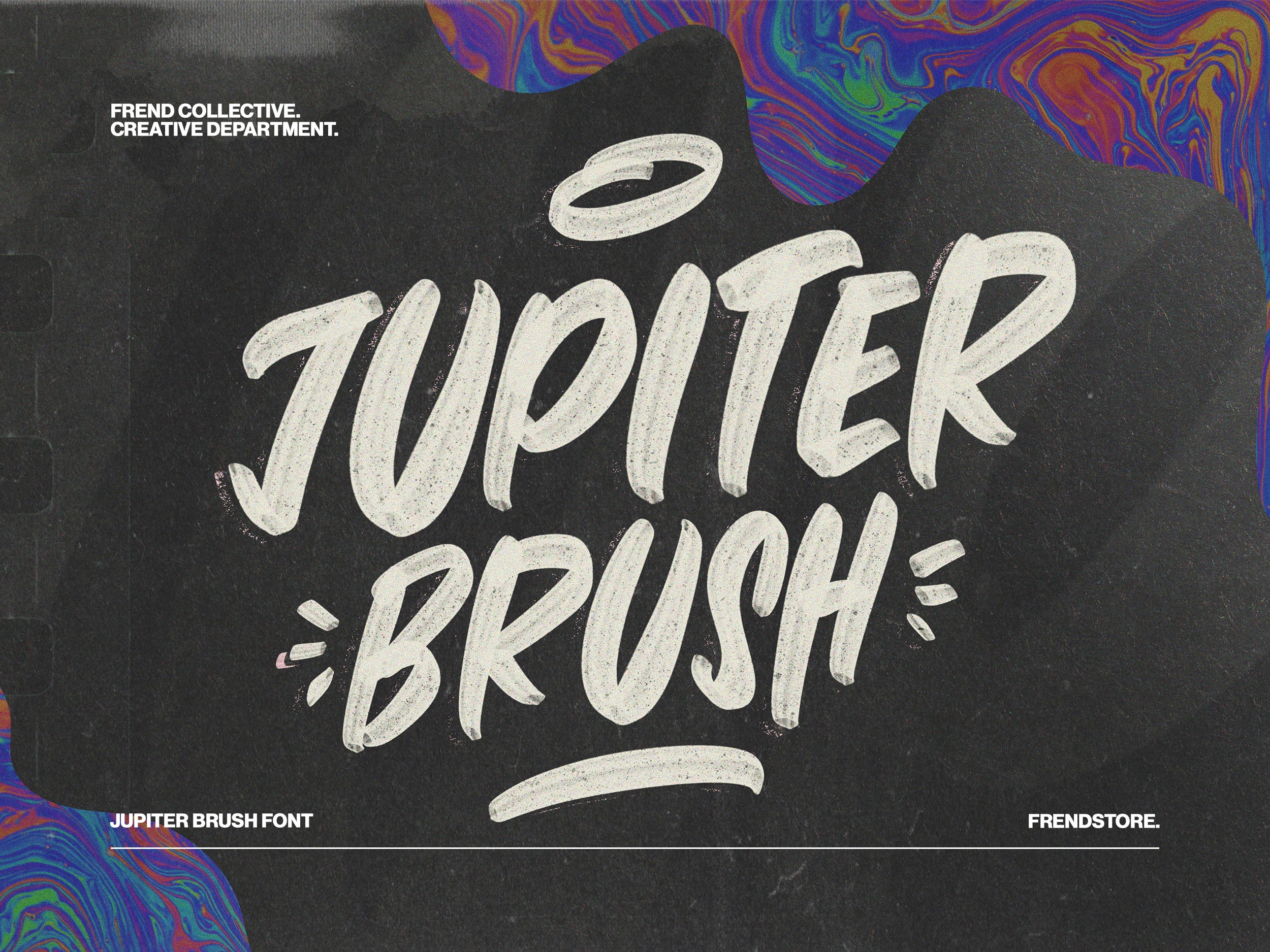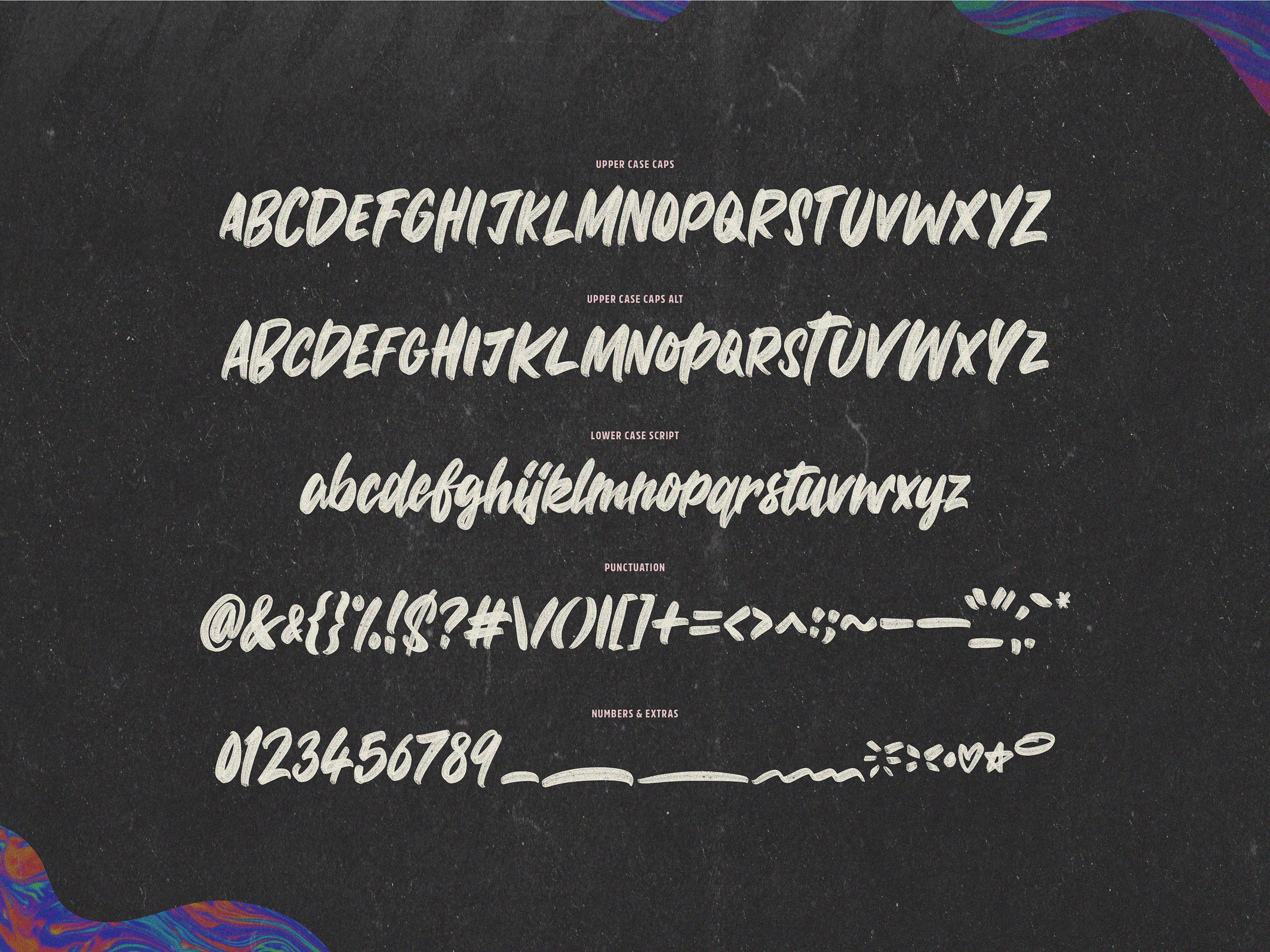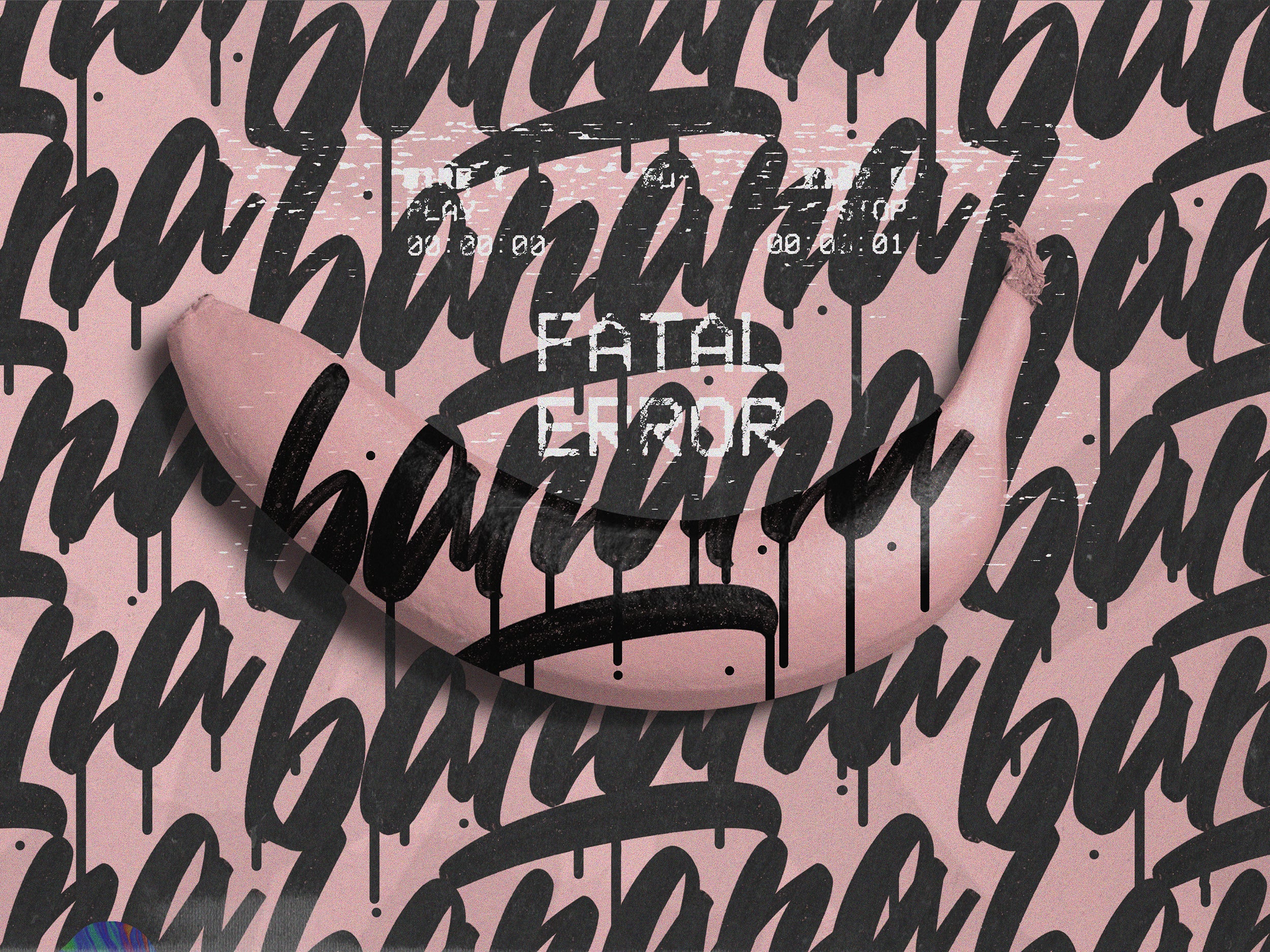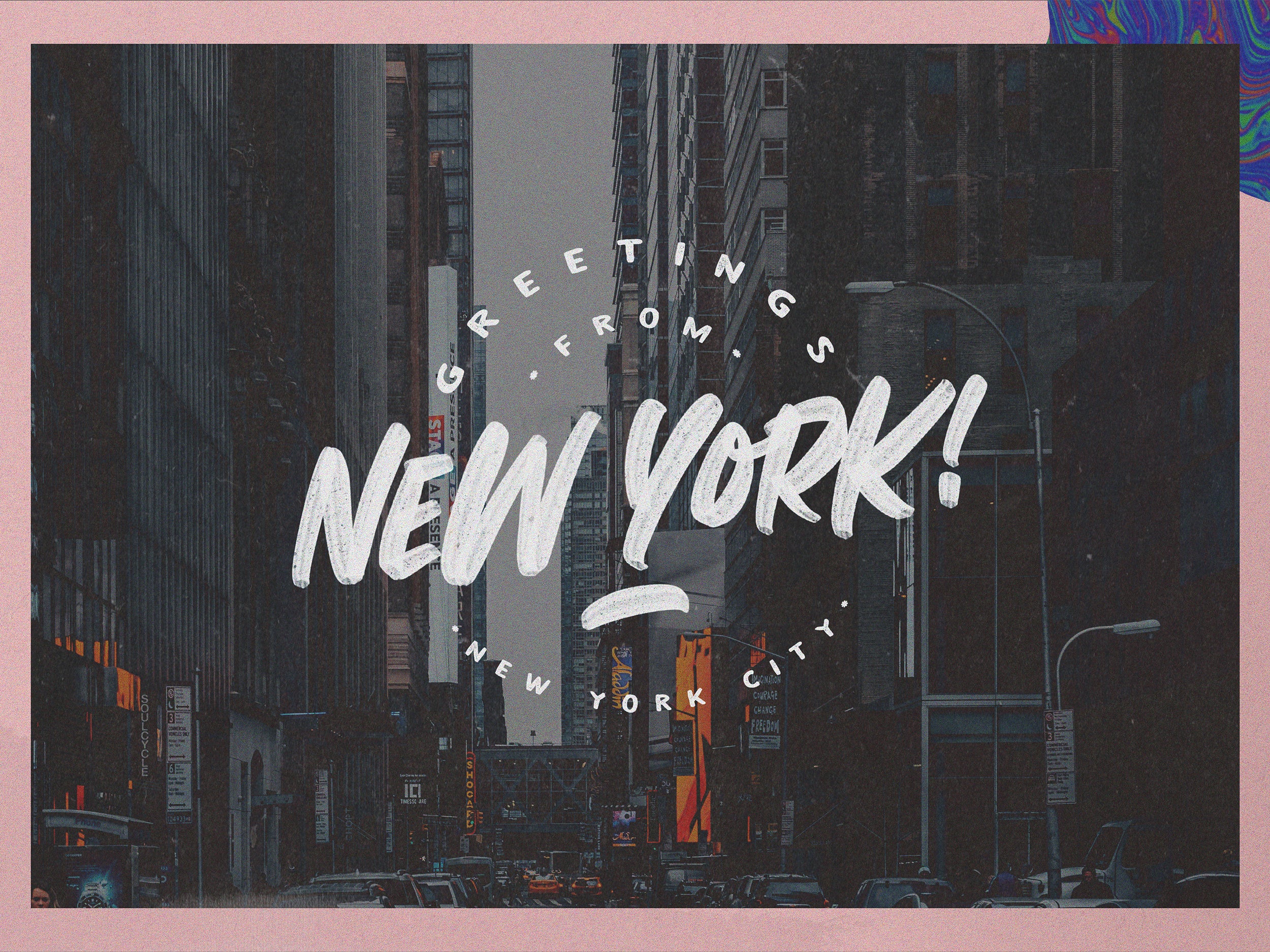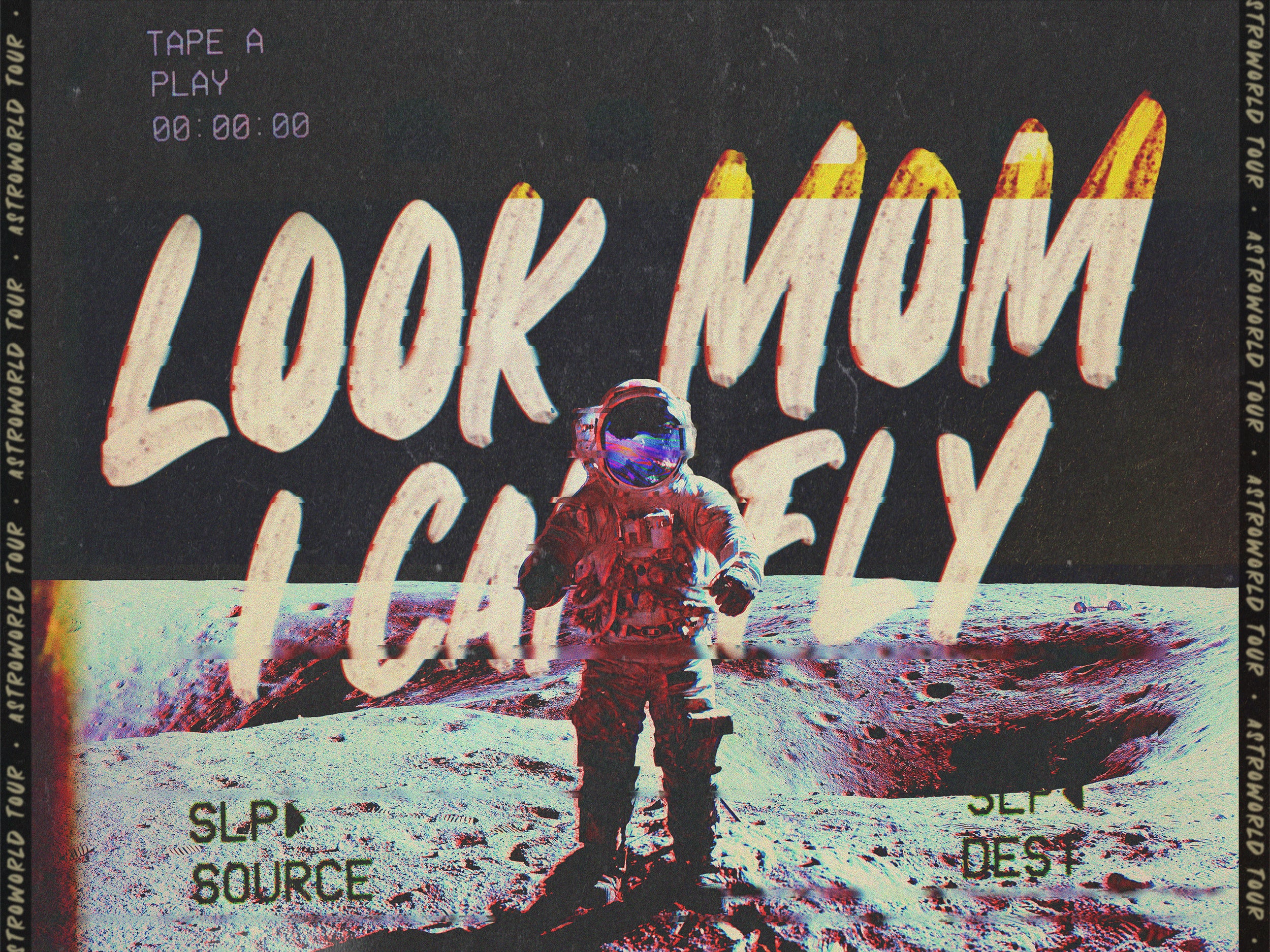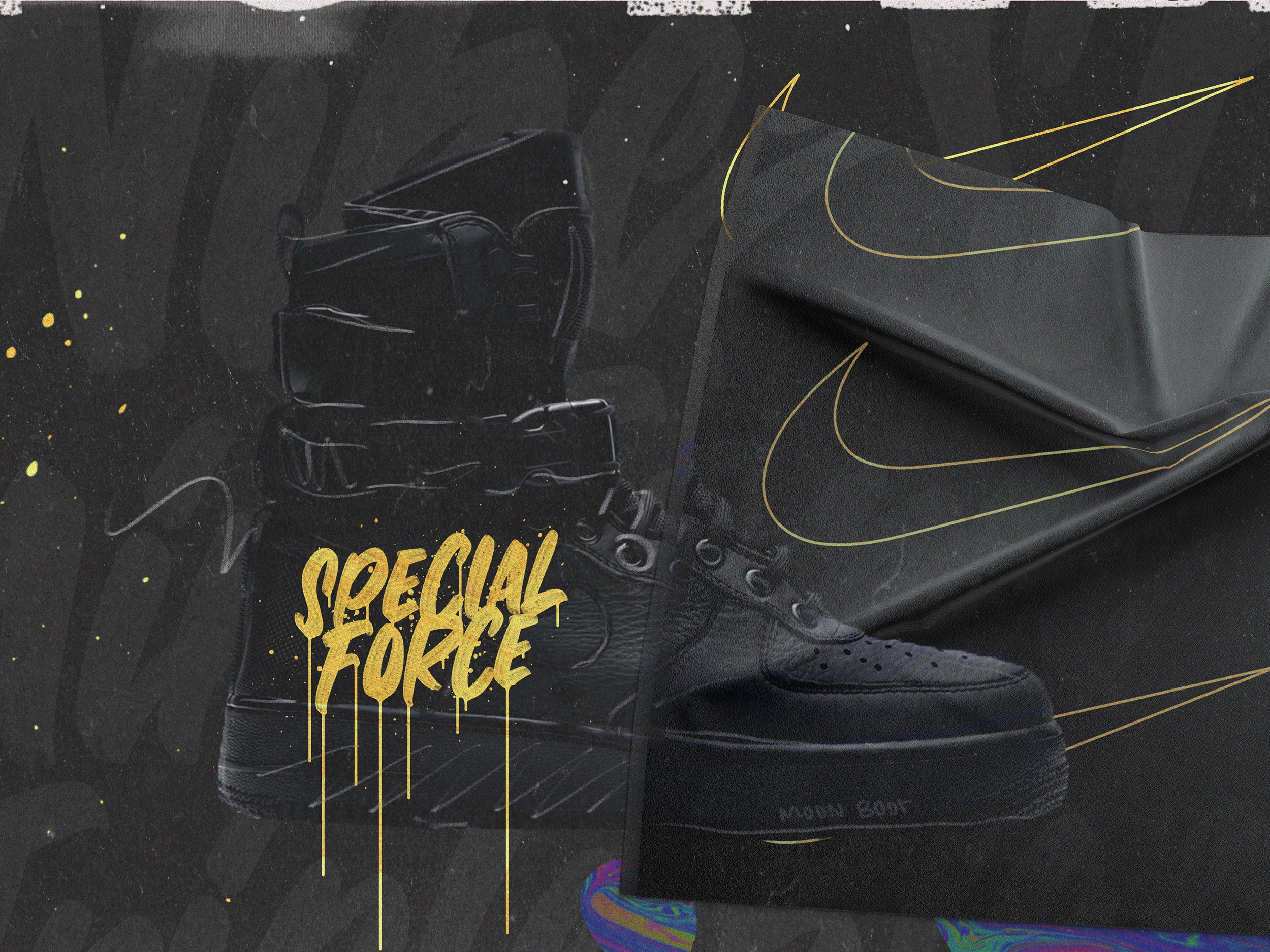
JUPITER BRUSH FONT
Introducing Jupiter Brush Font.
Jupiter Brush is a unique hand made brush font created using realistic brush strokes including inconsistent textures & letter-forms to give you the same look & feel as a real brush would! This font comes with 2 fonts, an SVG version and a vector version. Perfect for any project.
Features: All Caps Fonts + Alt / Lower Case / Numerals / Punctuations / Extras.